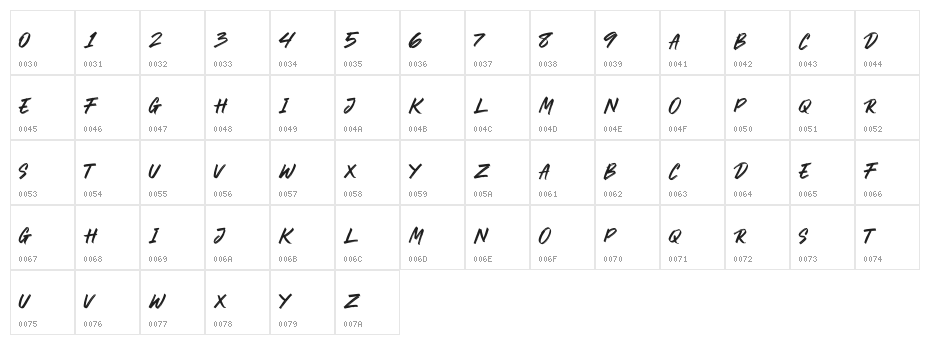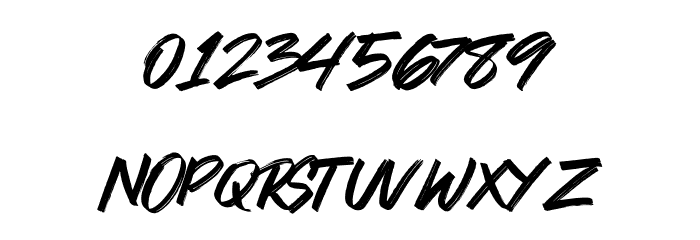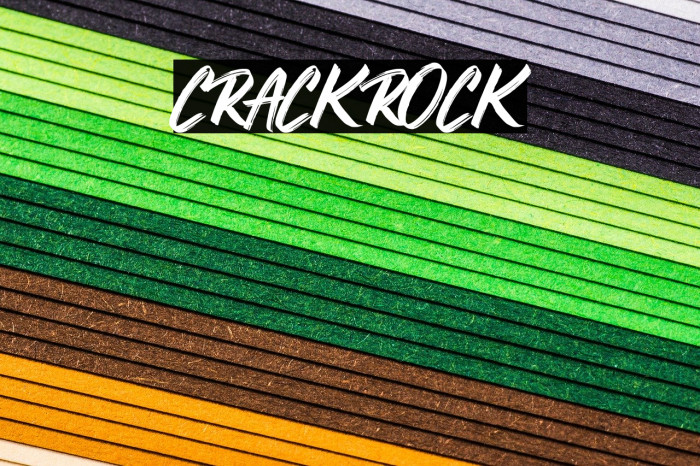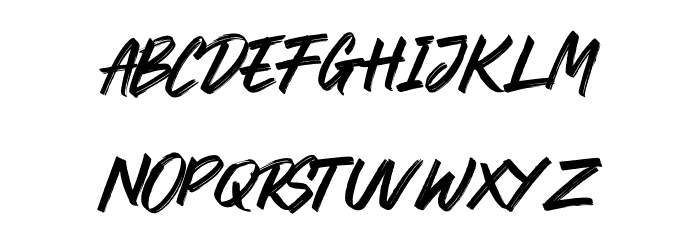
CRACKROCK Font
CRACKROCK Description
This font features a bold, dynamic script style with a strong, energetic presence. The letters are crafted with a brush-like appearance, giving them a hand-drawn, artistic feel. The strokes are thick and expressive, with a slight slant that adds to the sense of movement and fluidity. The uppercase and lowercase letters maintain a consistent style, while the numbers and special characters are designed to complement the overall aesthetic. This font is ideal for projects that require a bold and impactful visual statement.